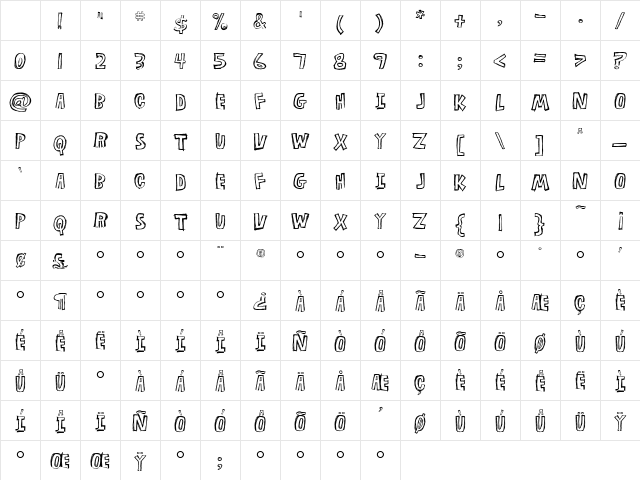
Complete Flyerfonts Regular glyph index. Displaying only characters natively supported by Flyerfonts Regular font.
Flyerfonts is a composed and adaptable typeface that performs quietly and consistently across a wide range of design contexts.